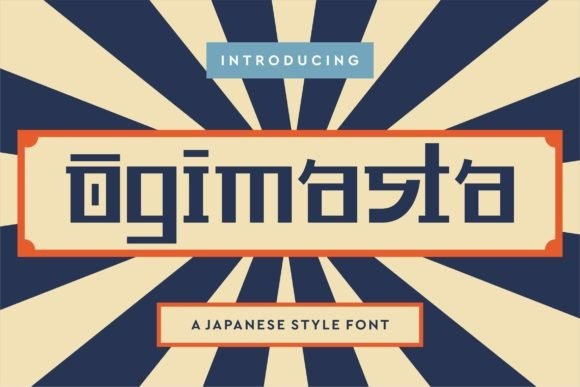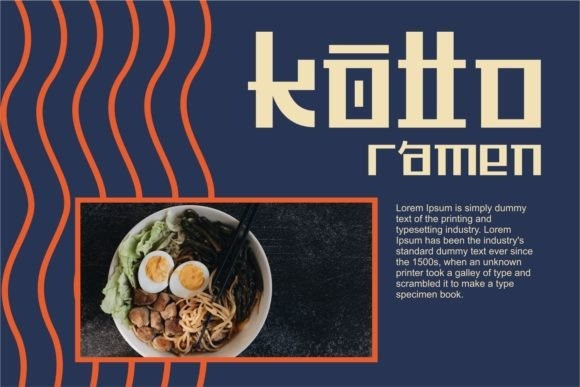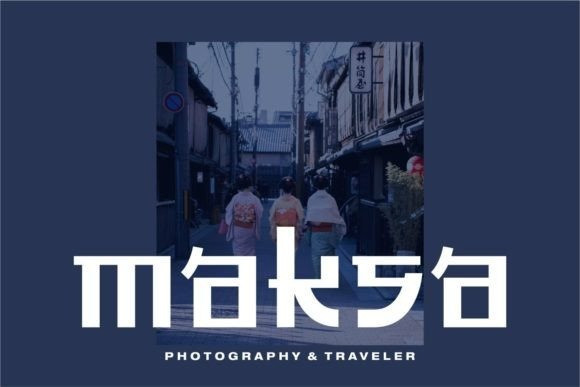
Ogimasta Font
Ogimasta is a fresh and unique display font inspired by Japanese culture. Contemporary and cool, it is perfect for any design you wish to create. Add it to your creative projects and make them outstanding!